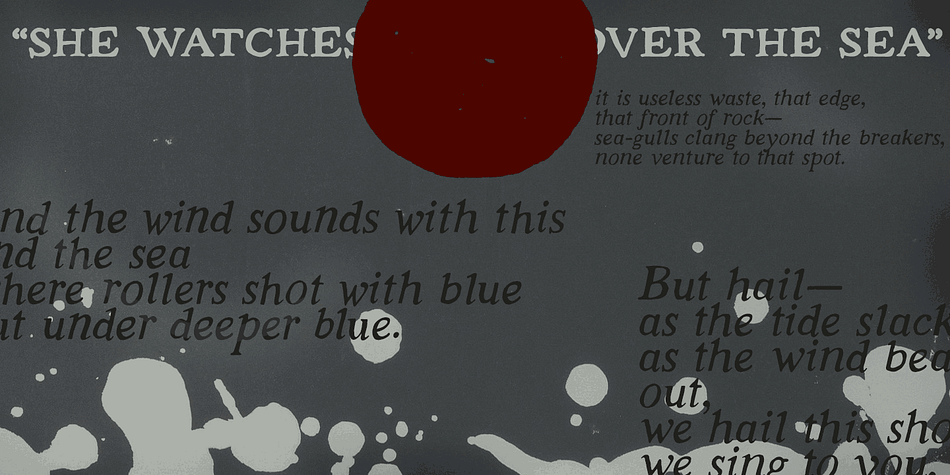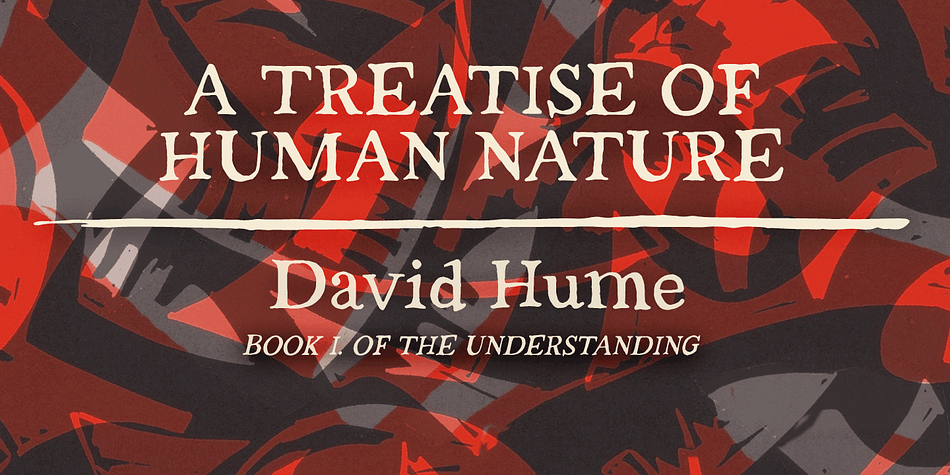
Strange Times
Designed by Ricardo Marcin and Erica Jung, Strange Times is a dingbat, display serif and hand display font family. This typeface has four styles and was published by PintassilgoPrints.
Available in 3 ​fresh ​cuts plus a sweet picture font, Strange Times is a serifed hand-drawn family. Or is it handwritten? Either way, it’s quite a handy family​​ with a generous touch of quirkiness and packed with lowercase alternates for a nice organic feel. Powered by Contextual Alternates programming, these alternates will cleverly cycle at the ​simple ​click of a button.